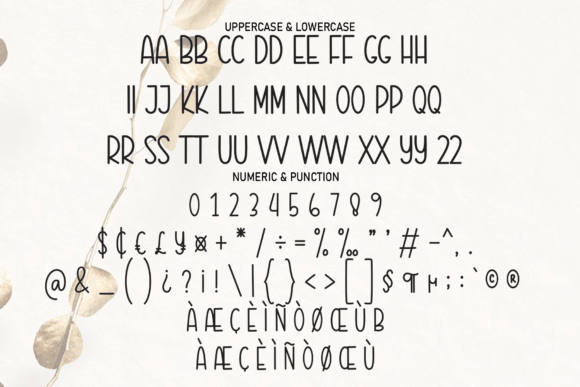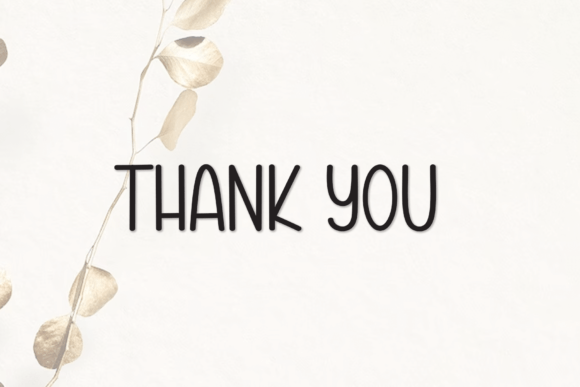
Unlocking Creativity with Decoration Creative Font
In the world of design, fonts play a pivotal role in bringing creativity to life. Among the myriad of fonts available, the Decoration Creative Font stands out for its unique blend of neatness and casualness. This handwritten font is not just a stylistic choice; it’s a tool that can elevate your designs, making them more engaging and distinctive. In this article, we’ll delve into the features of the Decoration Creative Font, explore its versatility, and discuss how it can be a game-changer for designers and crafters alike.
The Essence of Decoration Creative Font
Decoration Creative is a neat and casual handwritten font that strikes the perfect balance between elegance and informality. Its design is characterized by smooth lines, friendly curves, and a personal touch that resonates with audiences. This font is meticulously crafted to ensure readability while imparting a unique character to the text. Whether you’re working on a project that requires a touch of sophistication or a dash of playfulness, Decoration Creative Font proves to be an excellent choice.
One of the standout features of the Decoration Creative Font is its incredible versatility. It’s a font that can seamlessly transition across various applications and mediums. Here are a few ways you can utilize this font:
- Branding and Logos: Use Decoration Creative Font to create a memorable brand identity. Its unique style can help your logo stand out and make your brand instantly recognizable.
- Stationery and Invitations: Add a personal touch to your stationery, greeting cards, and invitations. The font’s casual yet elegant feel makes it perfect for communicating warmth and personality.
- Digital Content: Enhance your website, blog, or social media posts with this font. It’s sure to capture the attention of your audience and make your content more engaging.
- Crafting and DIY Projects: For crafters and DIY enthusiasts, Decoration Creative Font can be used in various projects, from scrapbooking to crafting personalized gifts. Its friendly vibe adds a nice personal touch to handmade items.
Why Choose Decoration Creative Font?
Choosing a font for your project can be overwhelming, given the numerous options available. However, Decoration Creative Font offers several advantages:
- Uniqueness: It offers a fresh and distinctive look that can set your project apart from others.
- Readability: Despite its creative flair, the font maintains high readability, making it suitable for both headings and body text.
- Adaptability: Its versatility means you can use it across different projects and mediums without worrying about it looking out of place.
Tips for Using Decoration Creative Font
To make the most out of Decoration Creative Font, consider the following tips:
- Pair it Wisely: When using the font alongside other typefaces, ensure they complement each other. A contrasting font for headings and Decoration Creative for body text can create a visually appealing hierarchy.
- Adjust Size and Color: Play with the size and color of the font to emphasize certain parts of your text. This can help in guiding the reader’s attention.
- Experiment with Effects: Don’t be afraid to add subtle effects like shadows or outlines to give the text some depth, especially if you’re using it on a busy background.
Decoration Creative Font is more than just a stylistic element; it’s a powerful tool that can bring your creative ideas to life. Its unique blend of neatness and casualness, coupled with its versatility, makes it an invaluable asset for designers and crafters. By incorporating Decoration Creative Font into your projects, you’re not just choosing a font; you’re choosing to make a statement. So, go ahead and let your creativity shine with Decoration Creative Font.